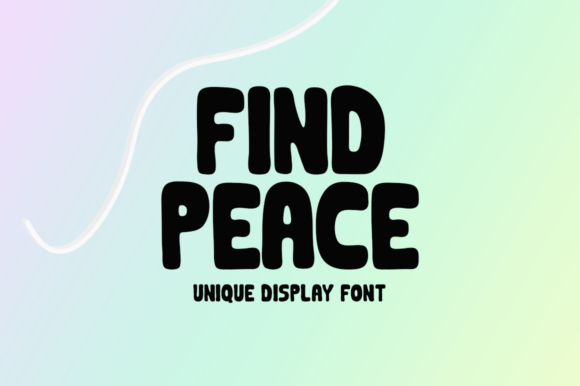
Discover the Power of Typography: Introducing Find Peace Font
Have you ever been stuck on a design project, pouring over ideas and inspiration, only to feel like something’s missing? You know the feeling – it’s like your creative vision is just out of reach. But what if you had the perfect tool to bring your ideas to life?
That’s where Find Peace Font comes in – a unique and inspiring display font designed to add a touch of personality to your creative projects. With its distinctive style and versatility, this font is the perfect companion for designers looking to take their work to the next level. Whether you’re working on a branding project, a social media campaign, or a stunning visual display, Find Peace Font is sure to help you find your creative voice and bring your vision to life.
Find Peace Font Key Features
- Font Family: Find Peace Font is a modern, sans-serif font family designed for digital use.
- Unique Characteristics: Features a unique blend of clean lines, rounded edges, and subtle curves, making it perfect for creating a calm and peaceful atmosphere in designs.
Designer Review: Find Peace Font
As a designer, I’ve had the chance to work with the “Find Peace Font”, and I’m excited to share my honest thoughts about this font.
- Clean and Simple Aesthetic: The Find Peace Font has a beautiful, minimalist design that makes it perfect for creating a sense of calmness and serenity in any project.
- Highly Legible: The font is extremely easy to read, making it an excellent choice for body text, titles, or even signage.
- Comprehensive Character Set: The font includes a wide range of characters, including international characters and symbols, making it versatile for use in various languages and contexts.
- Limited Expressiveness: While the font is great for conveying a sense of calmness, it may not be the best choice for projects that require a more dynamic or expressive tone.
- No Distinctive Personality: Compared to other fonts, the Find Peace Font may not have a particularly unique or memorable personality, which could make it harder to stand out in a crowded design landscape.
The Find Peace Font is a solid, dependable choice for designers who want to create a sense of calmness and serenity in their projects. While it may not be the most expressive or distinctive font, it’s a great option for body text, titles, or signage where readability and simplicity are key.
The Find Peace Font is ideal for creating designs that evoke feelings of calmness and serenity. Some common use cases include:
- Calm and peaceful social media graphics
- Invitation templates for weddings or baby showers
- Professional-looking presentations or documents
- Custom typography for branding or marketing materials